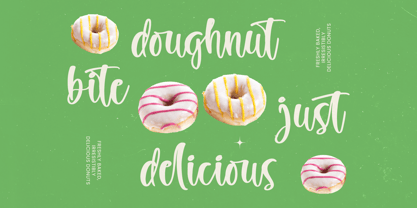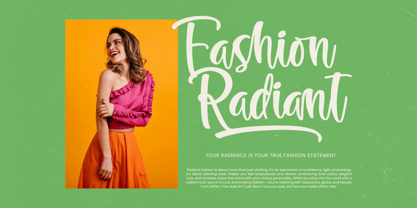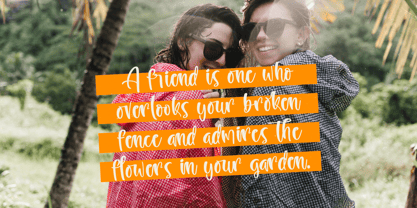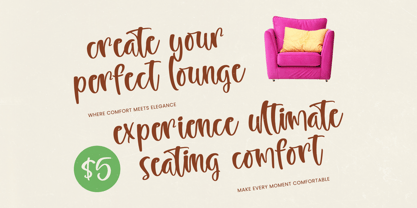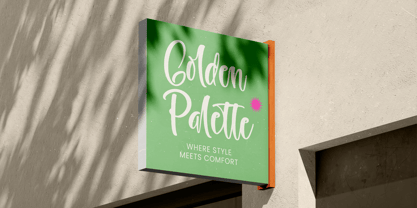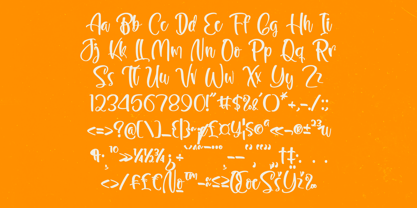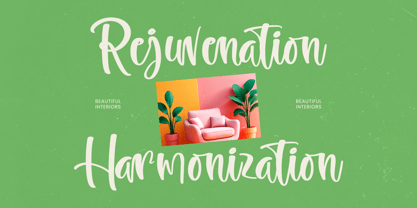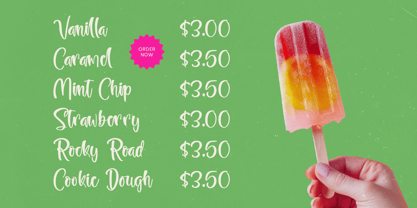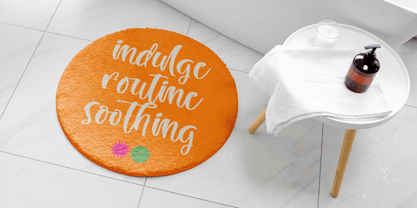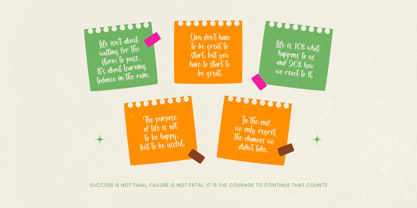
Behavior Goldway
The Behavior Goldway Font Family was designed by Heru Utama Putra and published by Stylishtype Studio. Behavior Goldway contains 2 styles and family package options. More about this family
Behavior Goldway - Bold Handwritten Font Behavior Goldway is a bold handwritten script font designed to bring vibrant personality and expressive energy to your creative projects. Inspired by modern brush lettering and confident signature styles, this typeface features thick, flowing strokes with smooth curves and dynamic movement, making it perfect for eye-catching branding and impactful typography. With 117 ligatures, 4 alternates, and 8 swashes, Behavior Goldway offers flexible letter combinations and stylish finishing touches that enhance natural flow and authenticity. Ideal for logos, packaging, posters, apparel, social media graphics, quotes, merchandise, and bold marketing materials, this font delivers a warm, handcrafted feel while maintaining strong visual presence. Whether for digital or print use, Belanion Coldway brings bold character, creativity, and contemporary charm to every design.